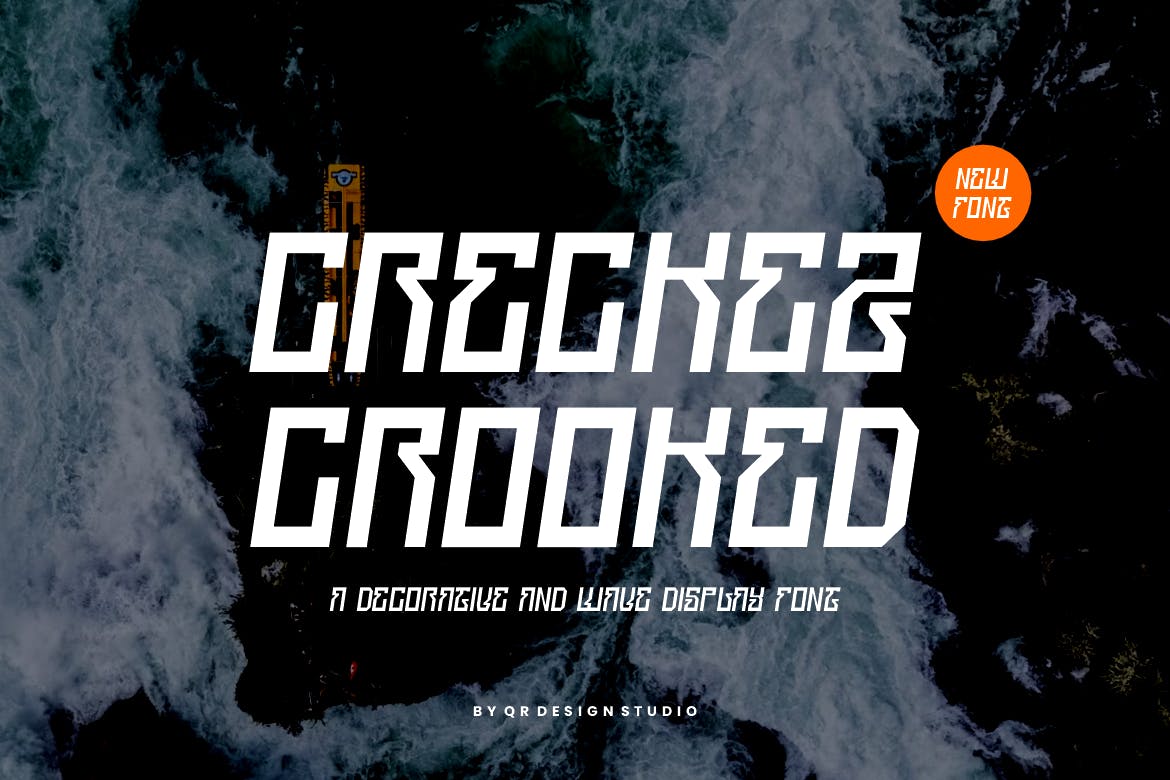
Creckez Crooked – Greek & Wave Font
Creckez Crooked is a unique Greek and wave font designed to add a distinctive flair to any project. With its balanced spacing and versatility, it works seamlessly at various sizes, making it suitable for both print and digital applications. This font enhances creativity, allowing users to convey messages with a stylish and contemporary aesthetic.